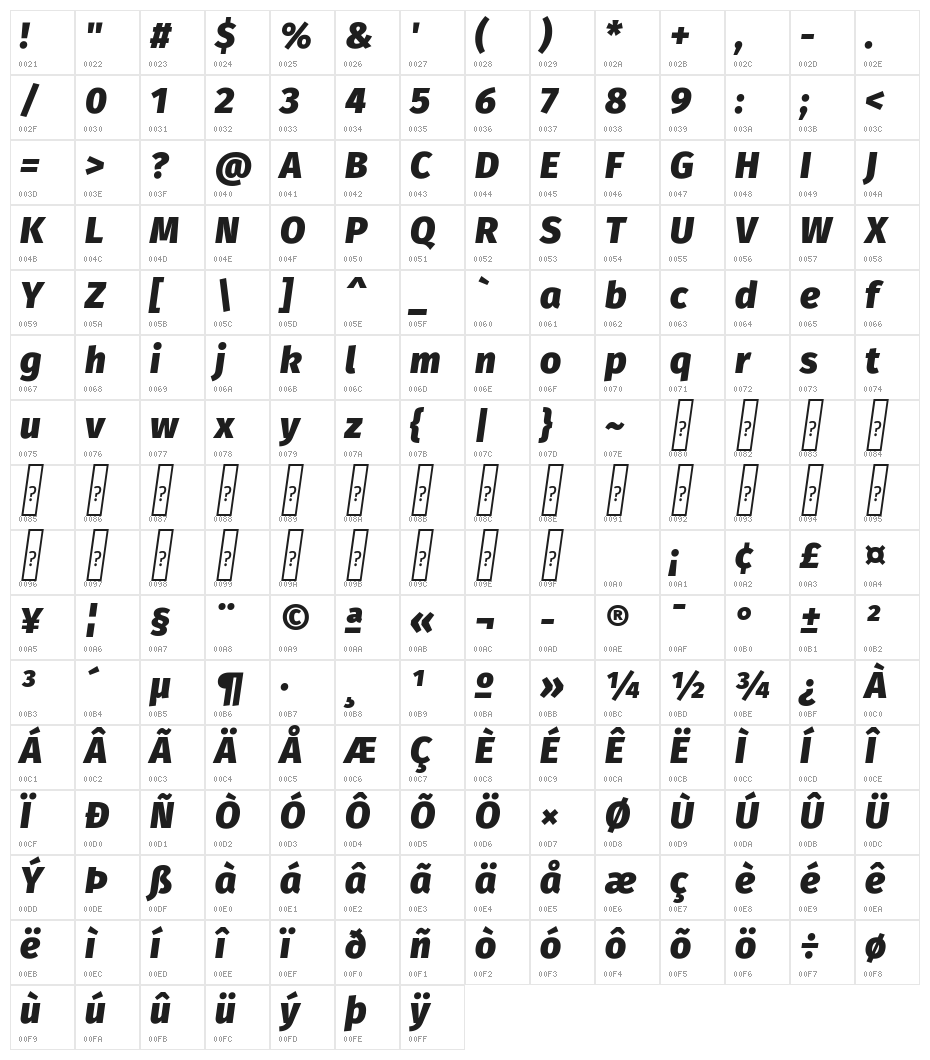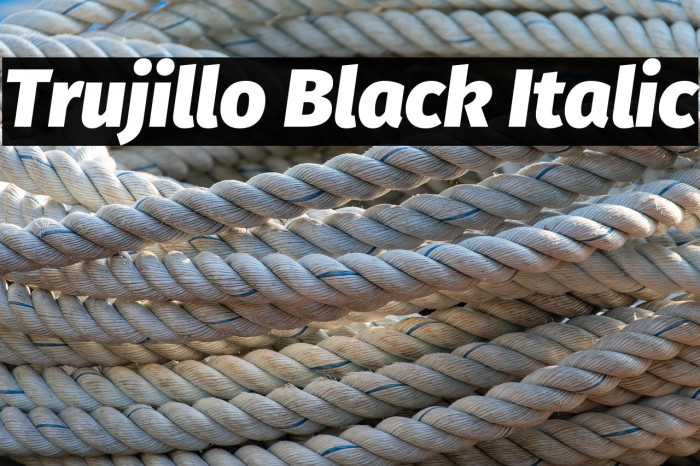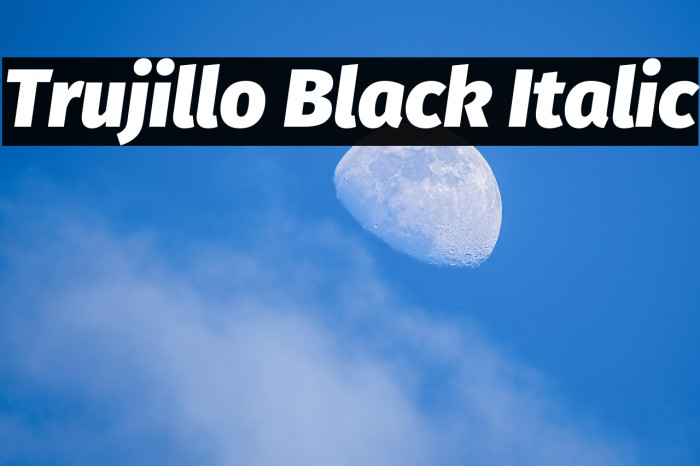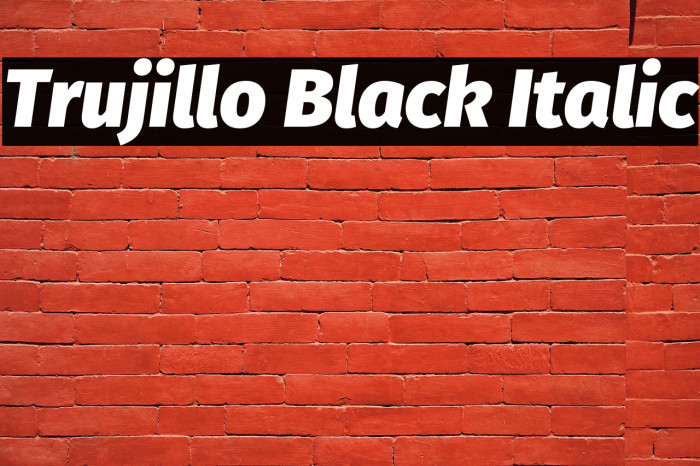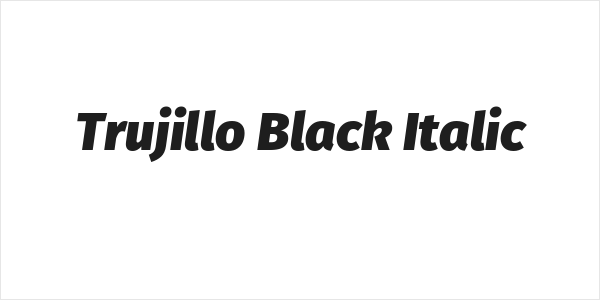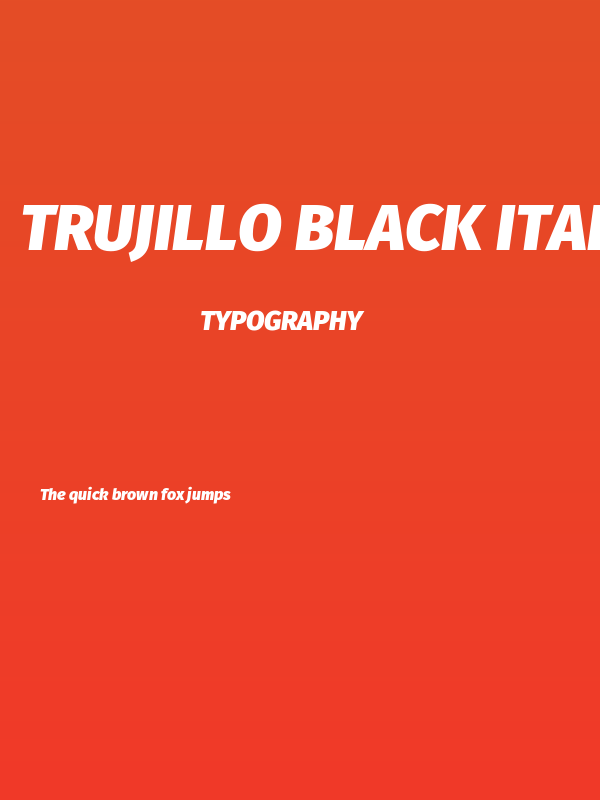
Trujillo Black Italic Font
Trujillo Black Italic Description
This font features a bold and dynamic style with a strong italic slant, giving it a sense of movement and energy. The characters are robust and solid, with thick strokes that convey strength and confidence. The uppercase and lowercase letters maintain a consistent weight, ensuring readability while adding a touch of flair. The numerals are equally bold, making them stand out effectively. Special characters are designed with the same boldness, ensuring uniformity across the typeface. This font is ideal for making a strong visual impact.
Proposed ProjectsIdeal for branding, headlines, posters, and advertising where a strong, impactful presence is needed.